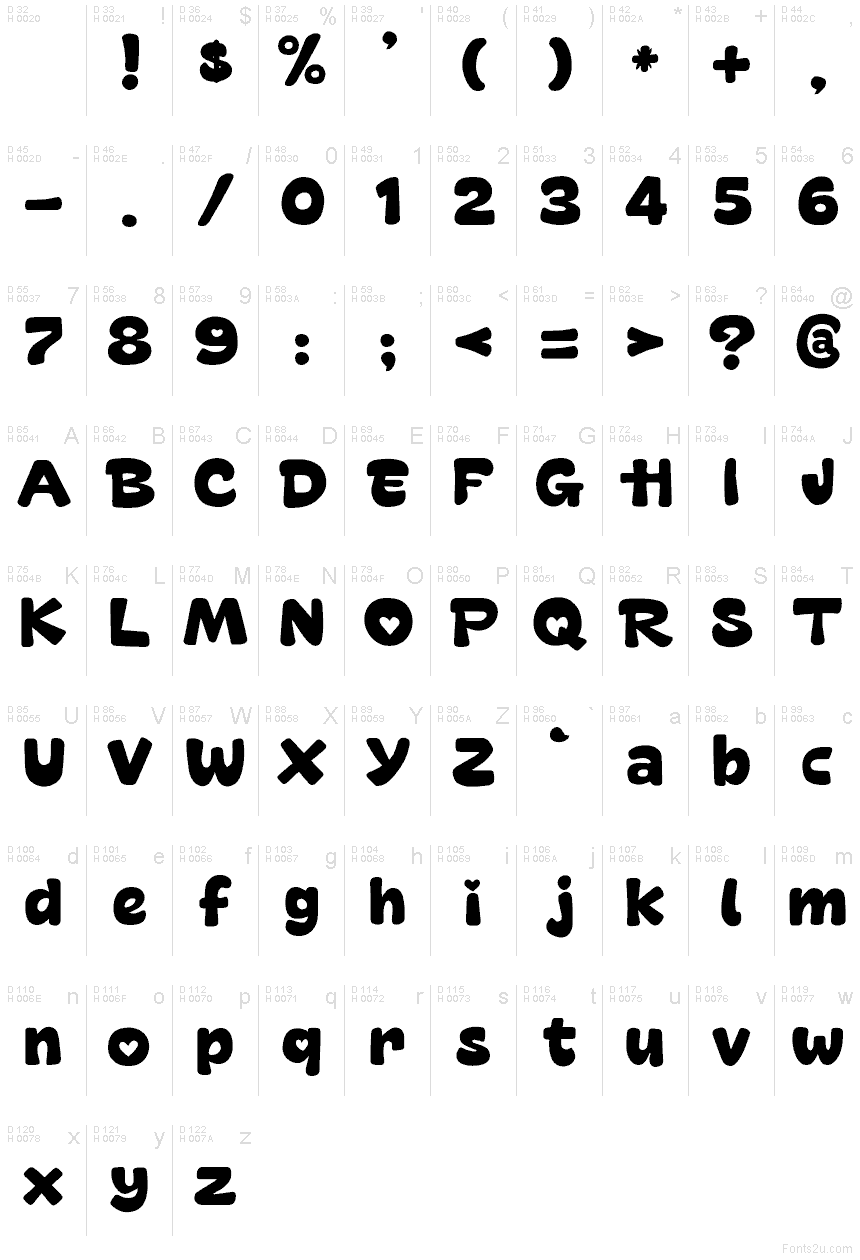
Romantic Christmas
Romantic Christmas font by BlackFridayFont FMF is a free cartoon display font. Built with chunky, rounded strokes and cozy, hand-drawn sway, it reads like frosting piped onto a cookie—soft edges, bold weight, and a cheeky heart motif that pops with warmth. It lands that sweet spot between festive and friendly, giving holiday graphics instant charm without turning saccharine.
Using Romantic Christmas, you get legible, smiley letters that hold up at large sizes and keep their bounce in short phrases. This free font shines on greeting cards, party invitations, gift tags, seasonal banners, kids’ crafts, social posts, and treat packaging. For balance, pair its bubbly forms with a clean geometric sans and a hint of extra letter spacing when headlines need a little sparkle.